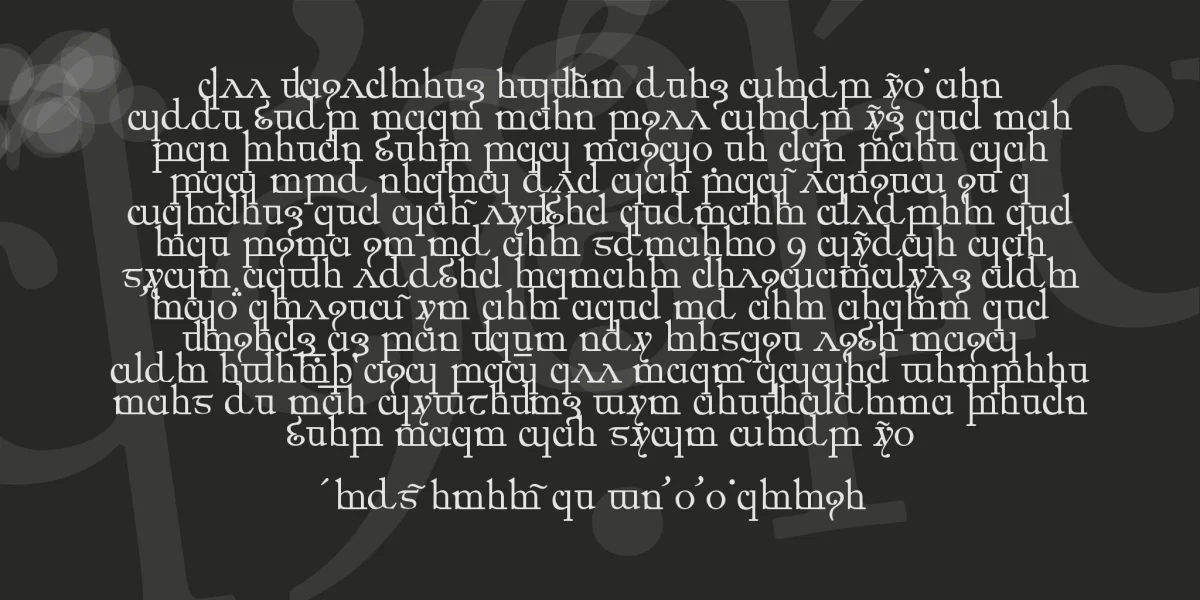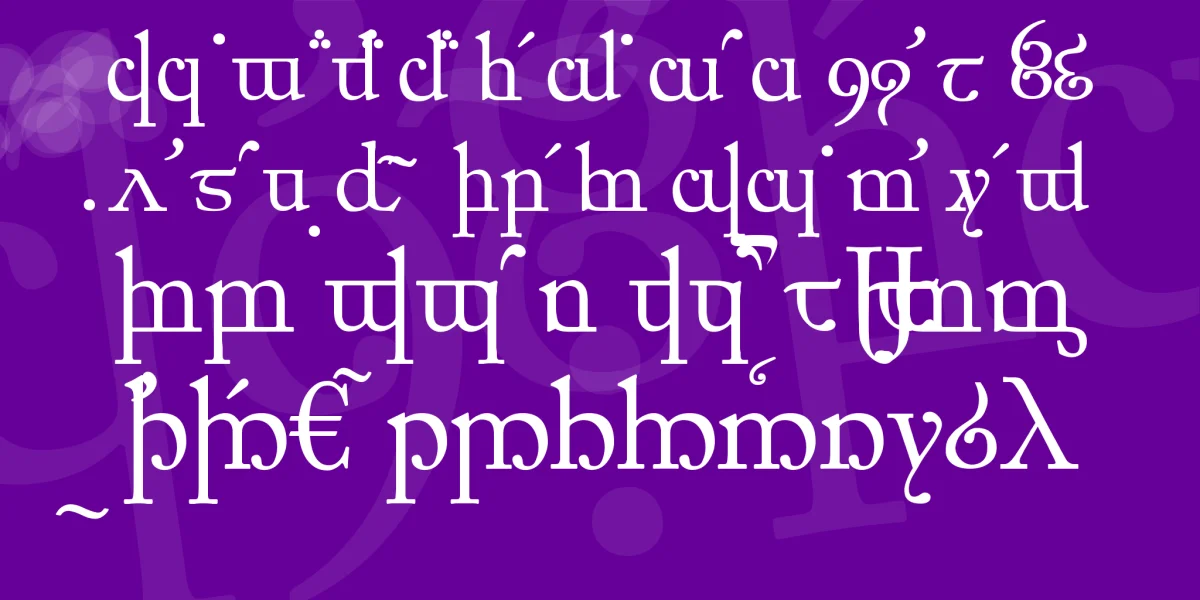
John Ronald Reuel Tolkien's life's work was probably the creation of a complete world of myths about Middle-earth, which he has described, among other things, in his novel "The Lord of the Rings" and other works. Tell the world about this philologist konstzruierte their own languages, which were based both on Celtic languages, such as the Walliesischen, as well as in Finnish and Greek, but some have a very unique grammar. To this end he created a very own, very focused on the articulation of the sounds system of writing tengwar genanntt, which means character or characters in Tolkien language of Quenya. This writing here now is the attempt to create rules based on Tolkien's a typical document, which matches the characteristic style of the font Caslon ago.
Oh, the pattern text: These are the first lines from Galadriel's lament in Lórien, the most famous Quenya test, translated it means: "Ah like gold fall the leaves in the wind, long years as timeless as the wings of trees The long years! passed like swift drafts of the sweet mead in the high halls beyond the West under the blue vaults of Varda wherein the stars tremble in the song of her voice, holy and queenly. "taufrisch to